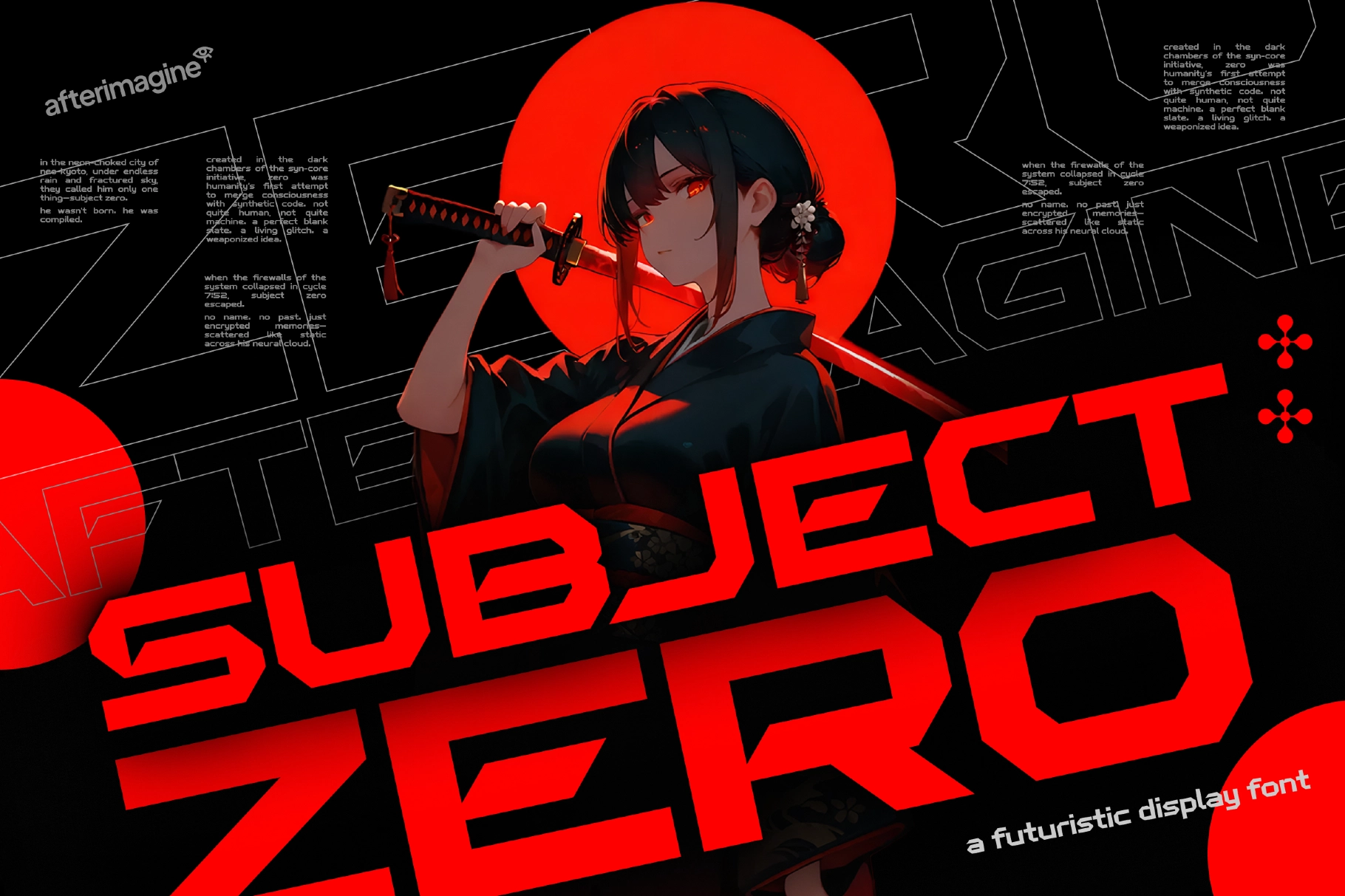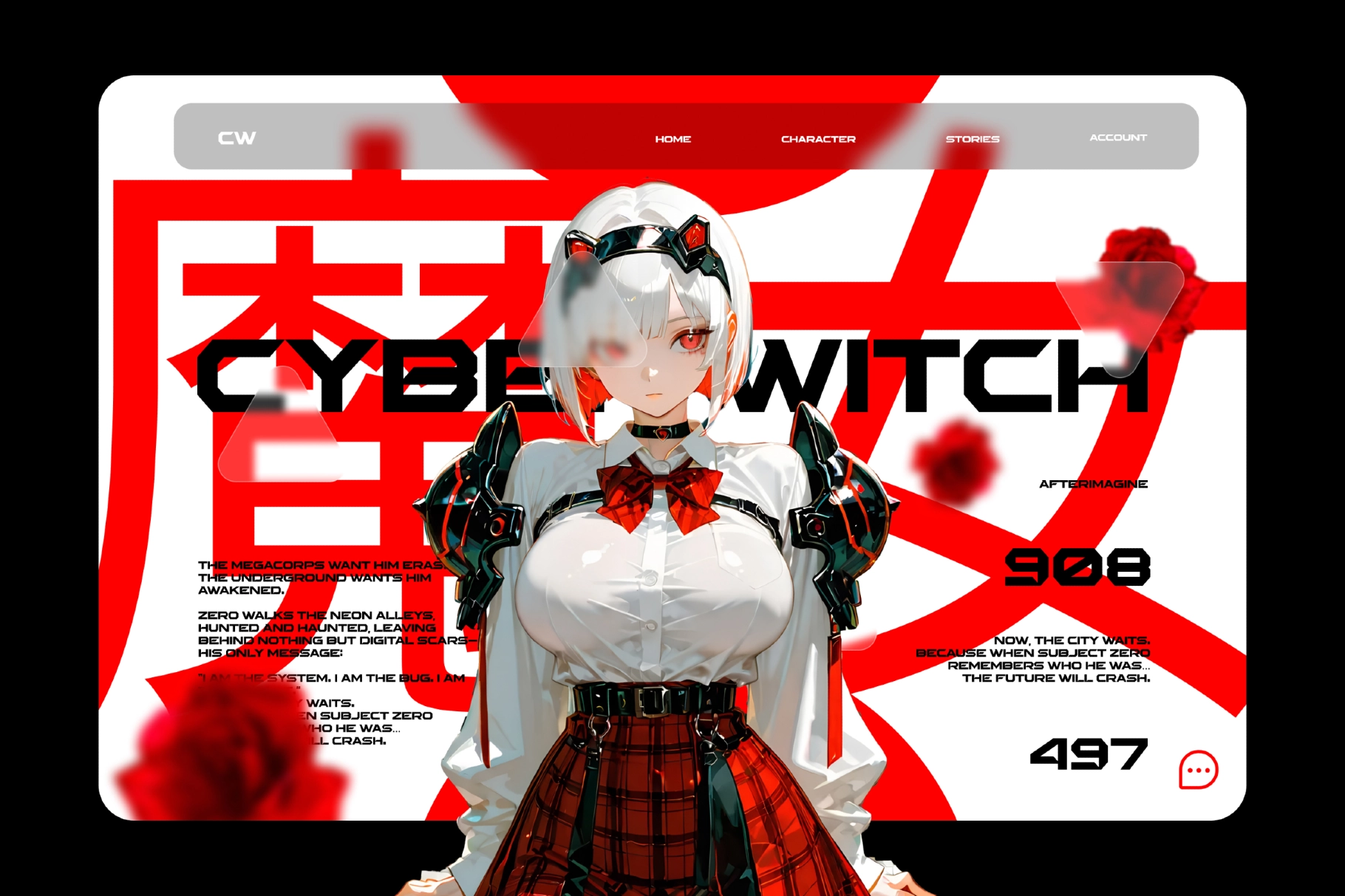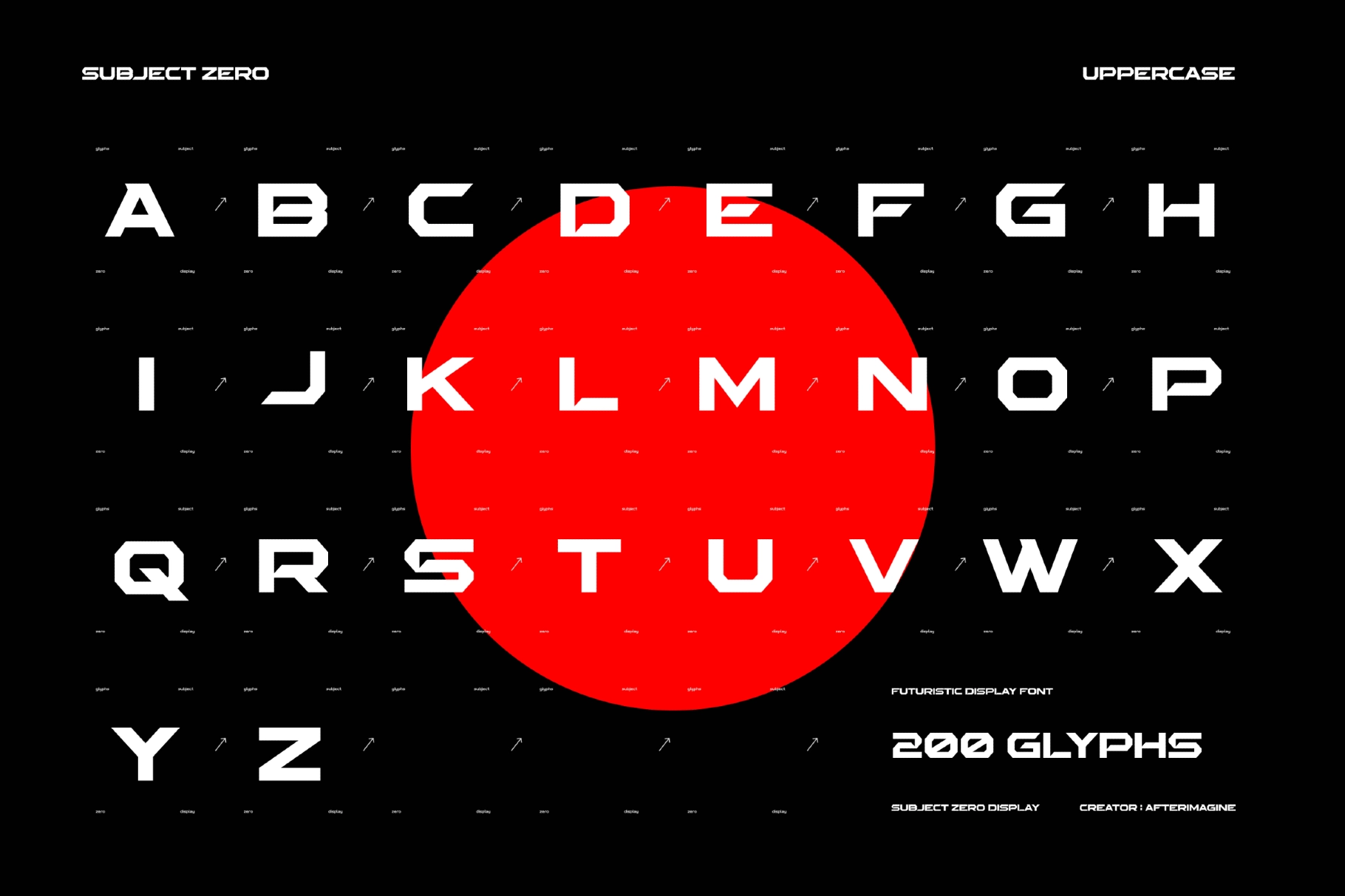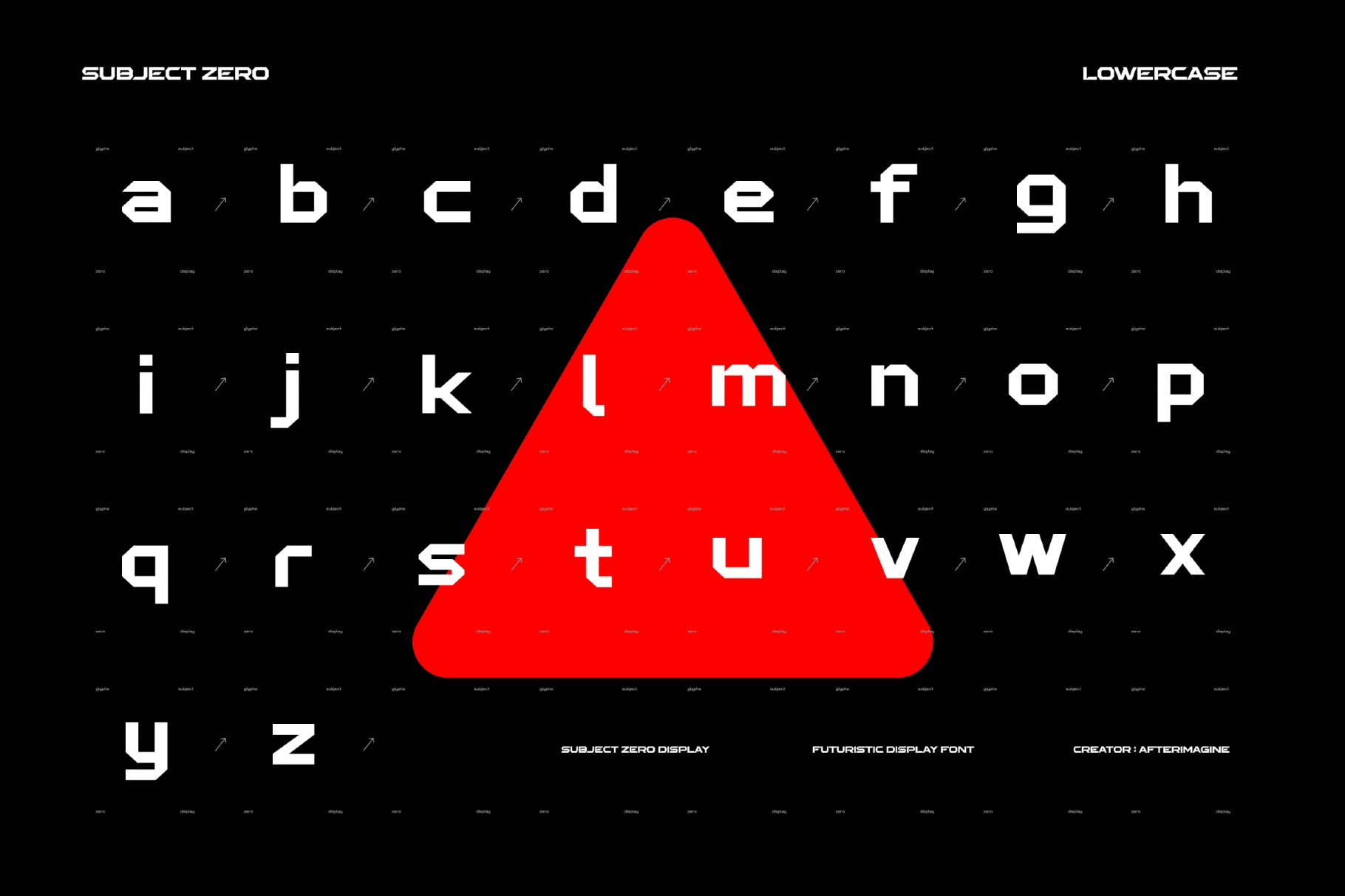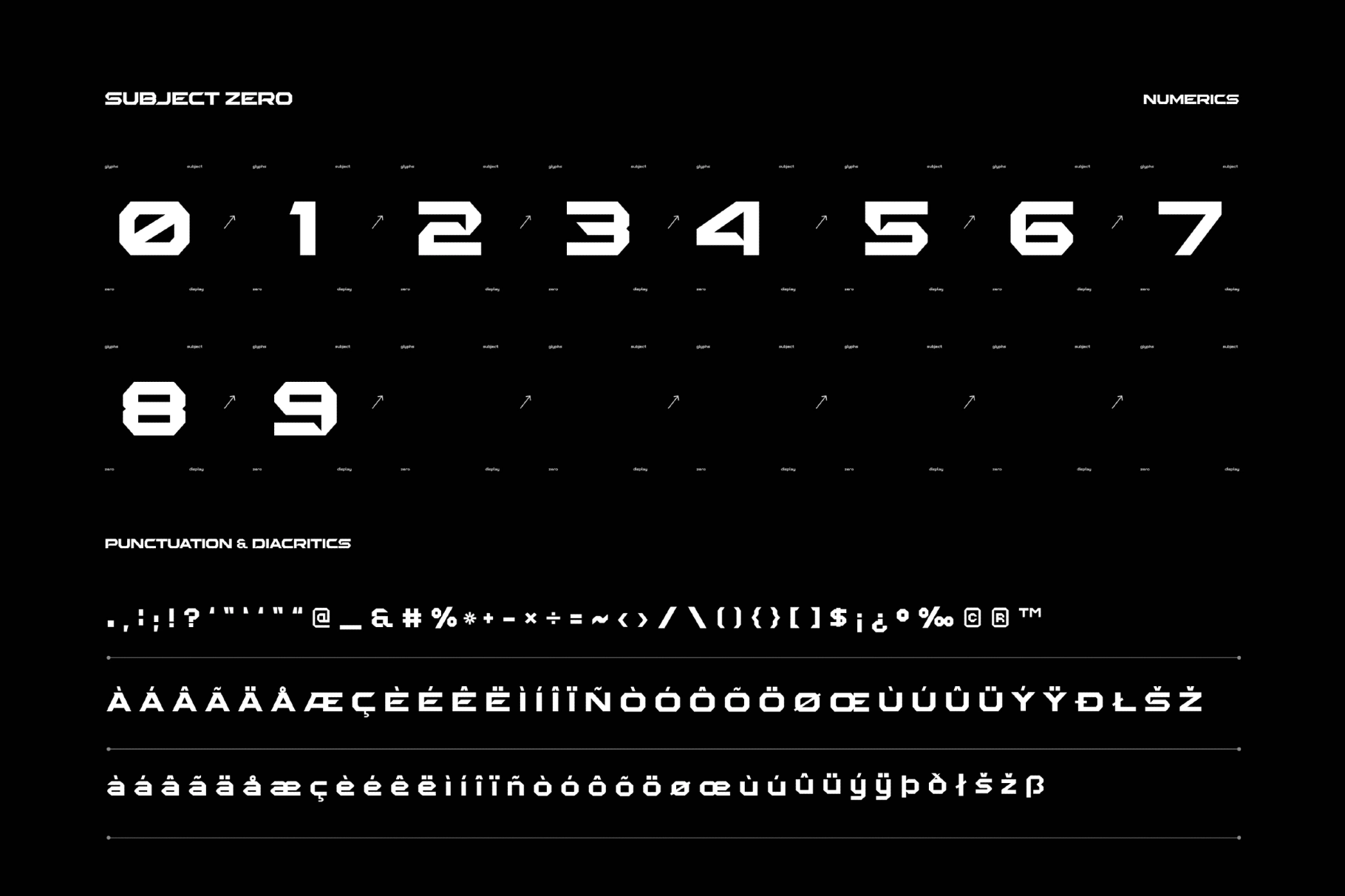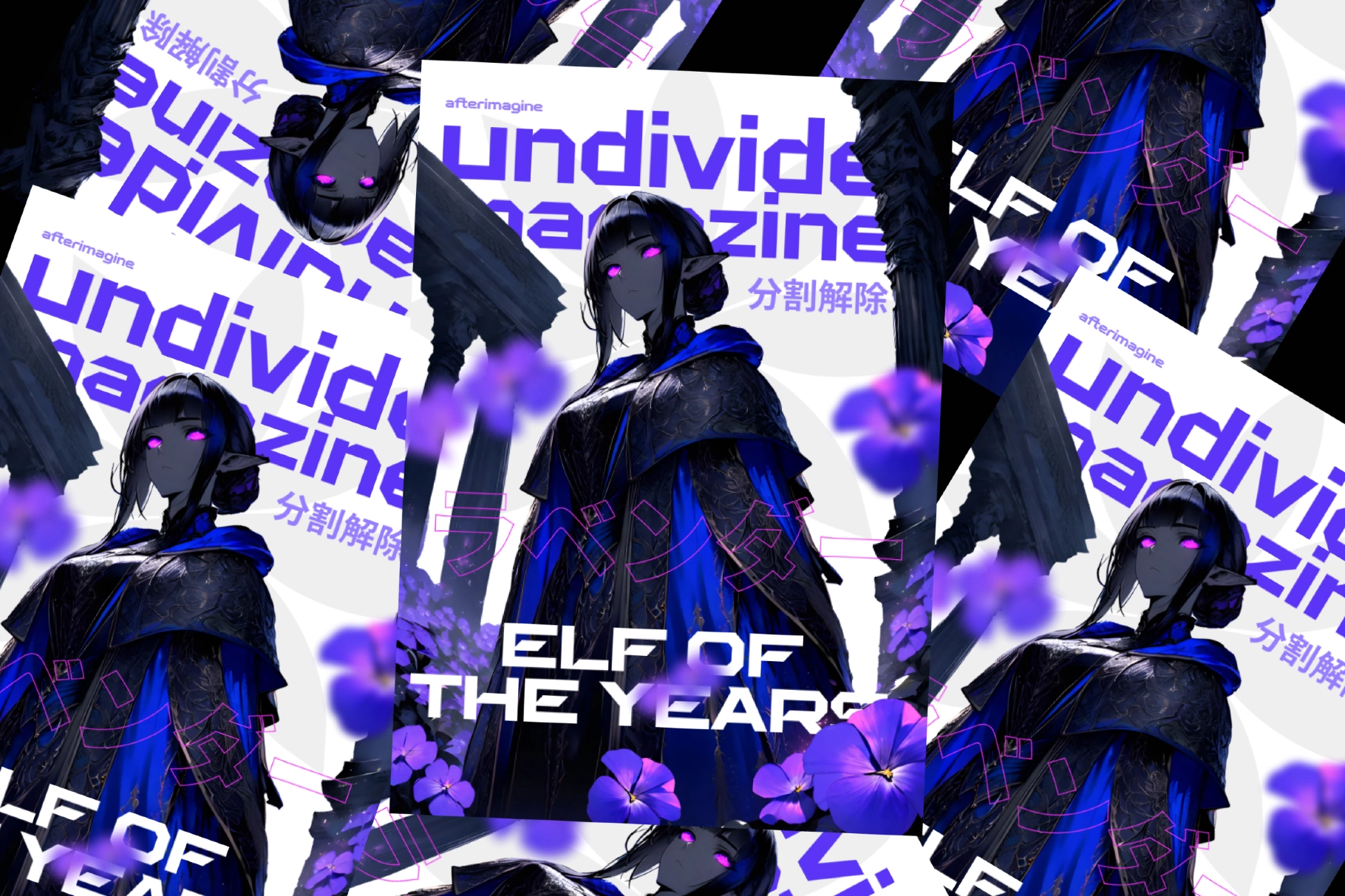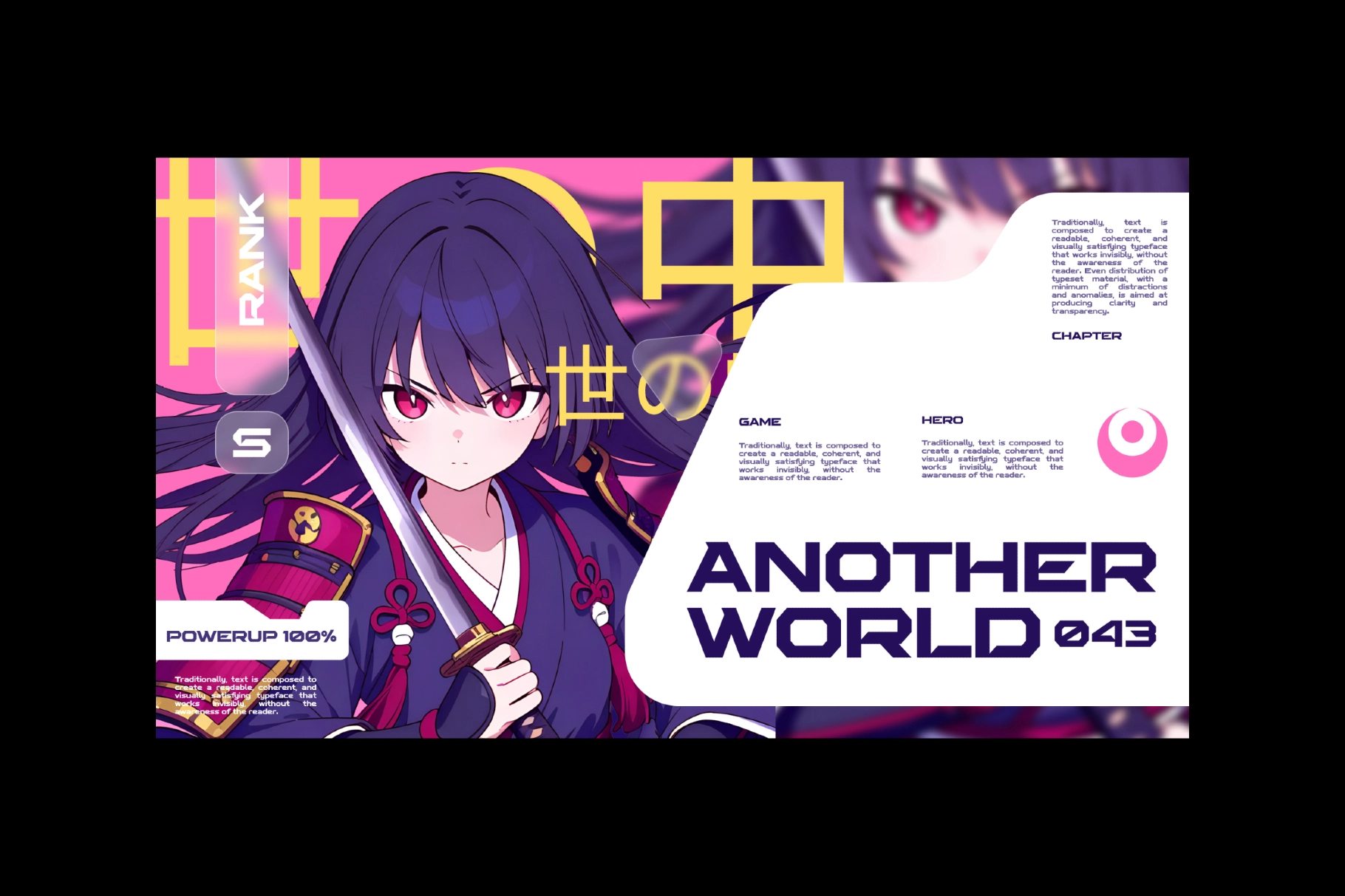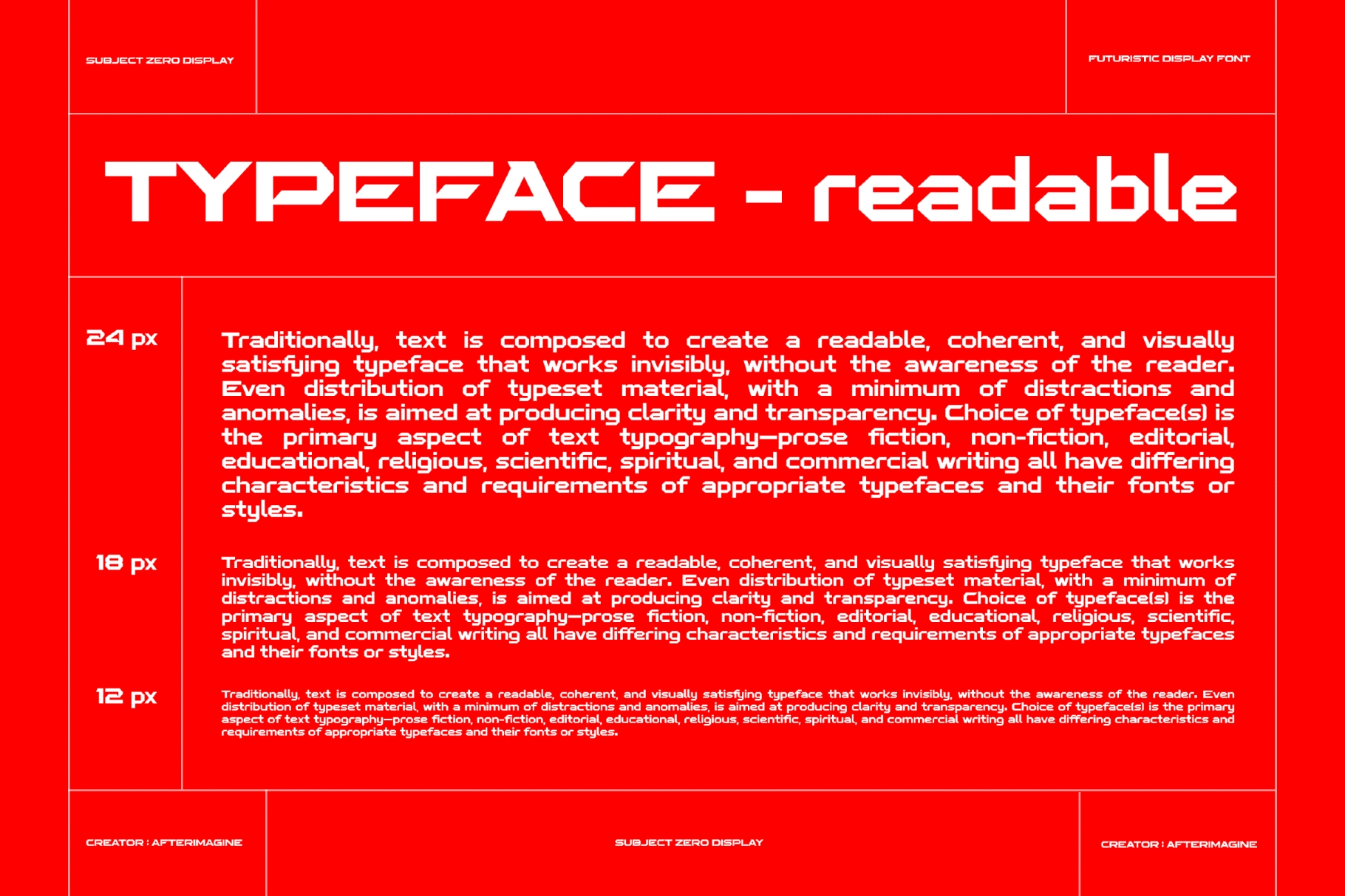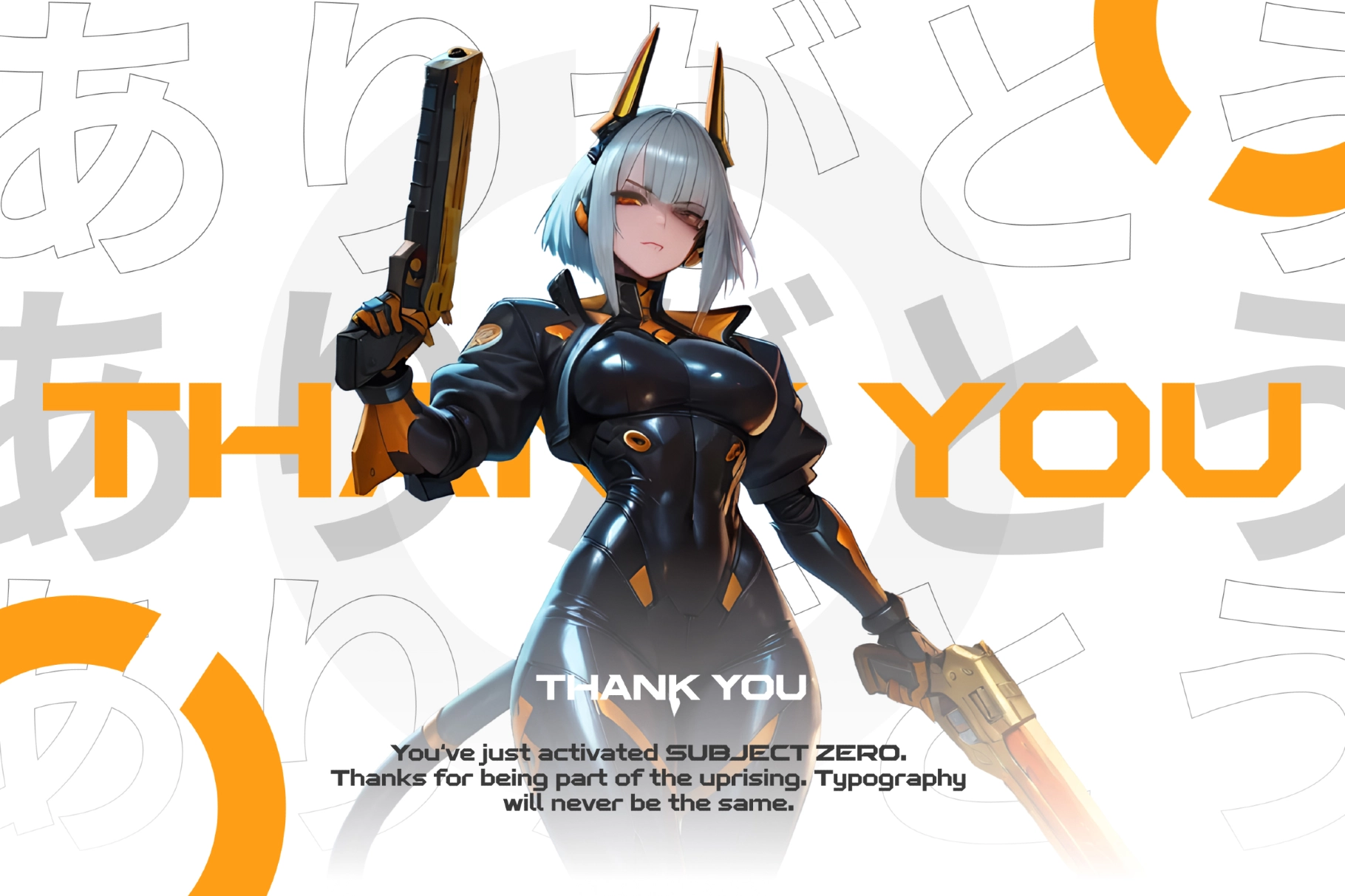
Subject Zero Futuristic Display Font
Subject Zero is a futuristic display font designed to bring a bold, high-tech feel to your projects. With its angular forms, sharp lines, and sci-fi aesthetics, this typeface is perfect for tech branding, game titles, posters, and cyberpunk designs. Whether you’re working on a movie poster or a digital UI concept, Subject Zero delivers an edgy and powerful typographic presence.
• Uppercase letters A–Z
• Lowercase a-z
• Numbers 0–9
• Punctuation and Symbols
• Multiple languages (Diacritics and Accents)